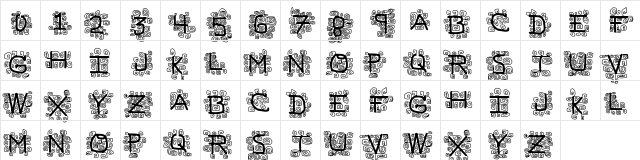
pf_vvbf19 Regular Free Font
pf_vvbf19 Regular
Designer: David E. Howerton
Design Context for pf_vvbf19
pf_vvbf19 is a composed and adaptable typeface that performs quietly and consistently across a wide range of design contexts.